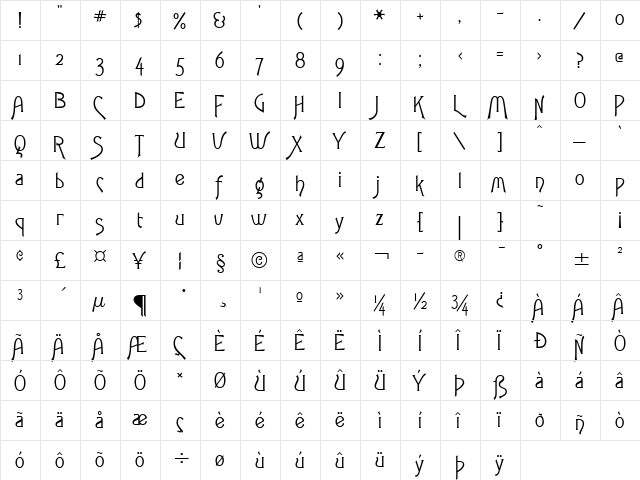
Fletch Normal
Design Context for Fletch Typeface
Fletch is a composed and adaptable typeface that performs quietly and consistently across a wide range of design contexts.